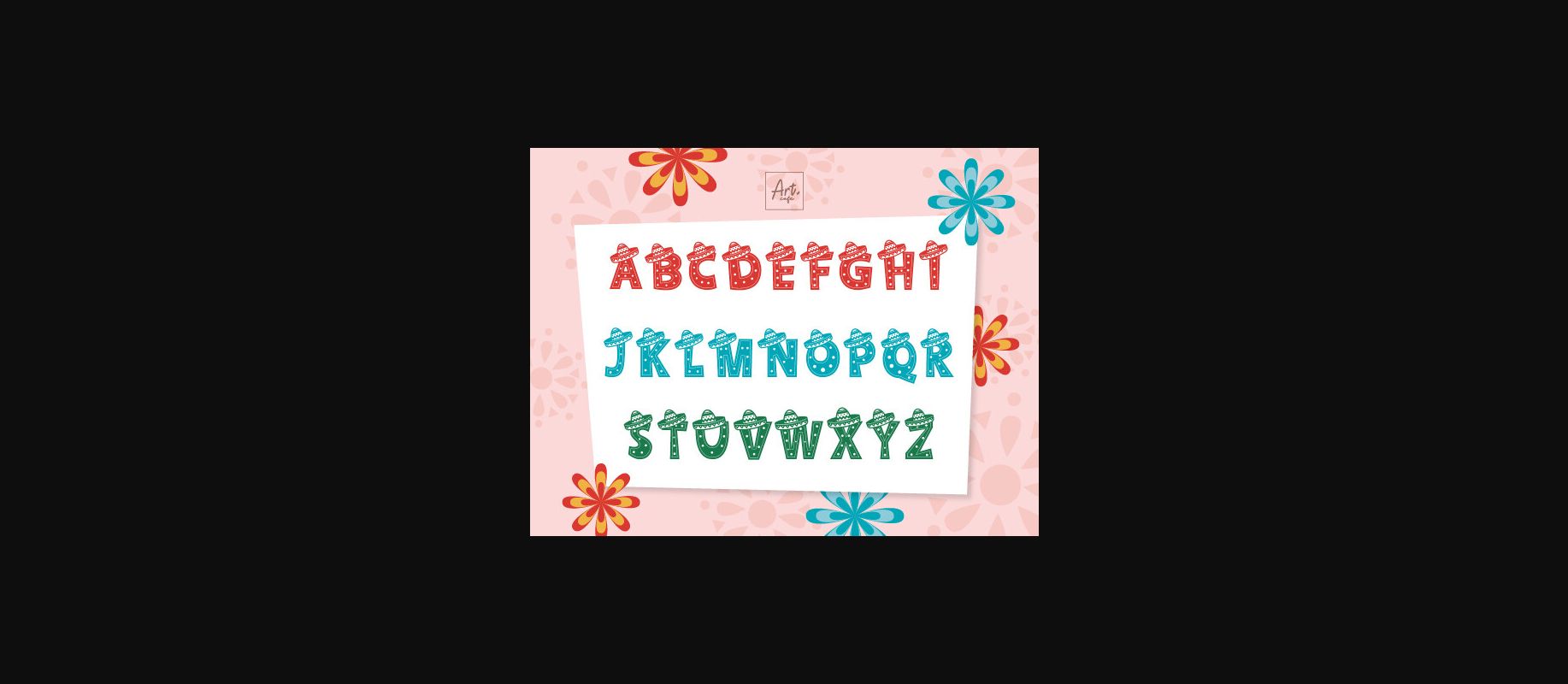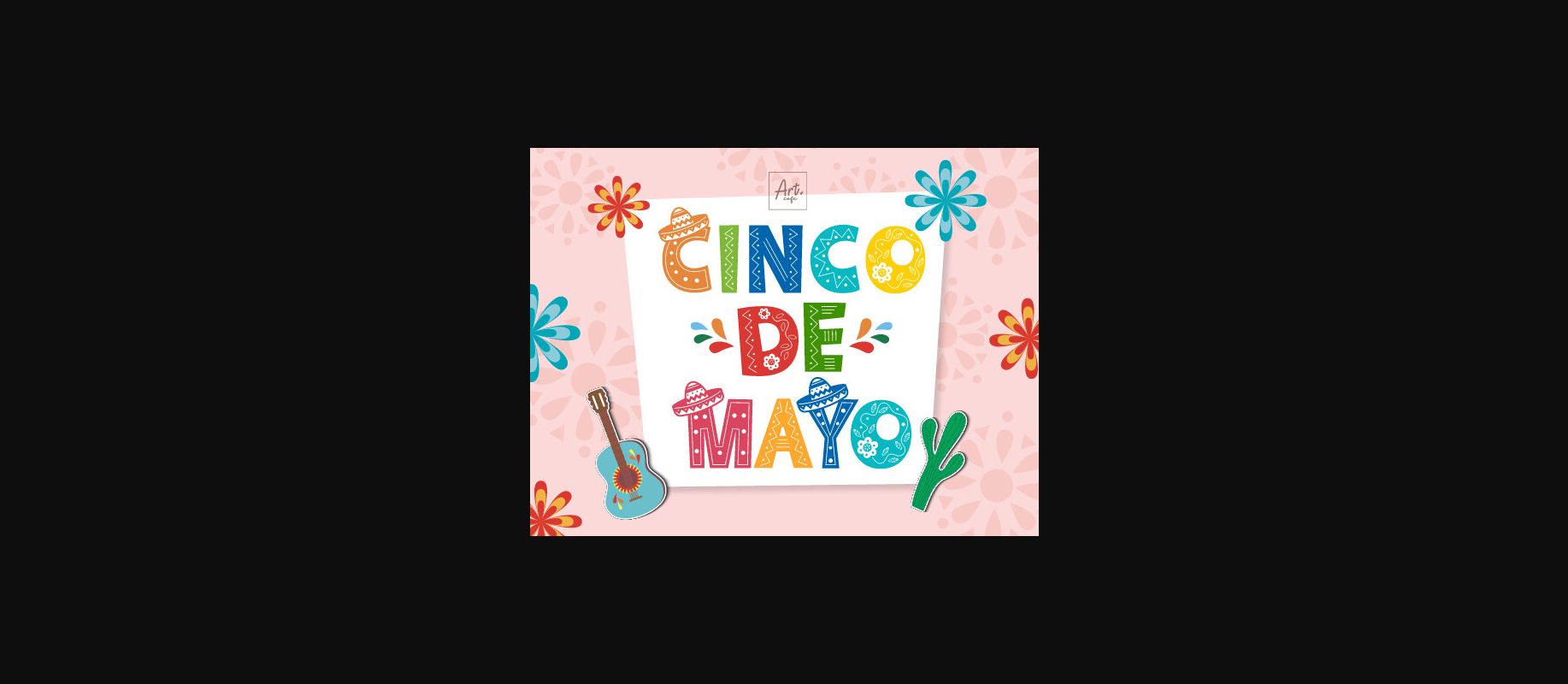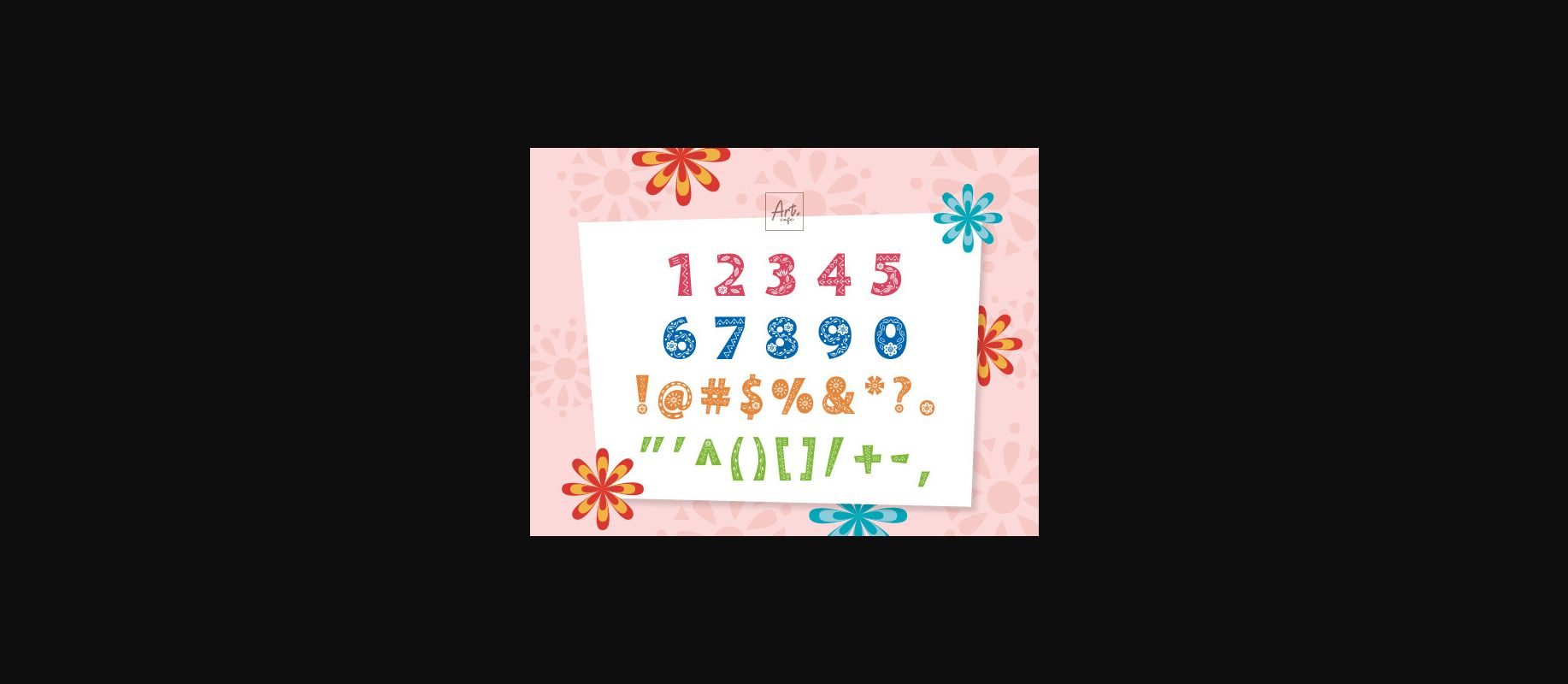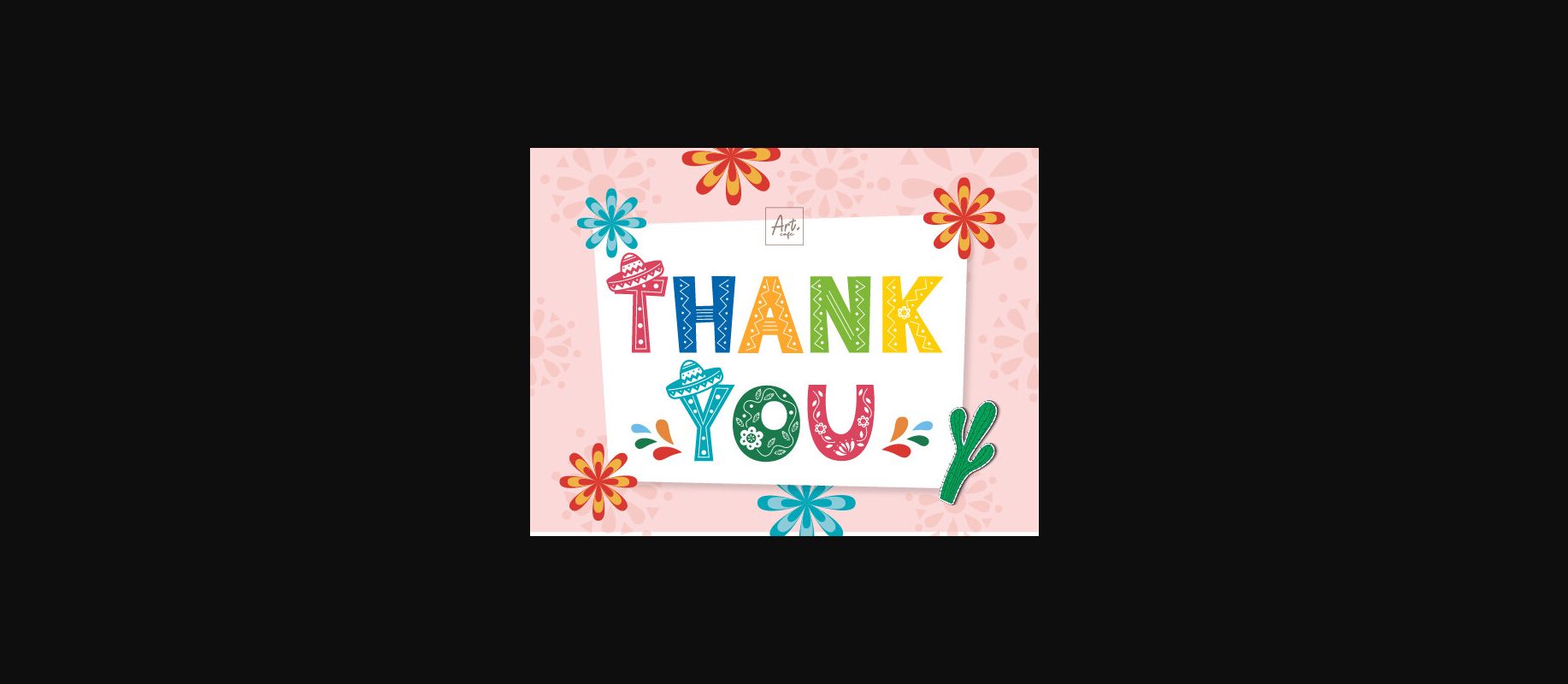
Cinco De Mayo Font
About Cinco De Mayo Font
Experience the vibrancy and energy of Mexico with the Cinco De Mayo font! Exuding an undeniable charm, this typeface is crafted specifically to cater to Fiesta celebration festivals. Imbued with a lively Mexican design aesthetic, Cinco De Mayo font adds a dose of festive flourish to your creative projects, enriching them with a spark of cultural intrigue. Infuse your designs with this font that seamlessly merges tradition, festivity, and style.